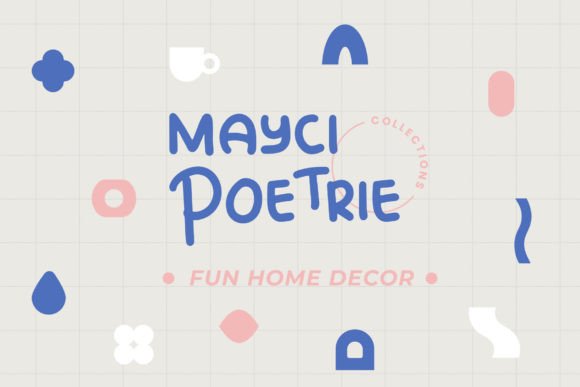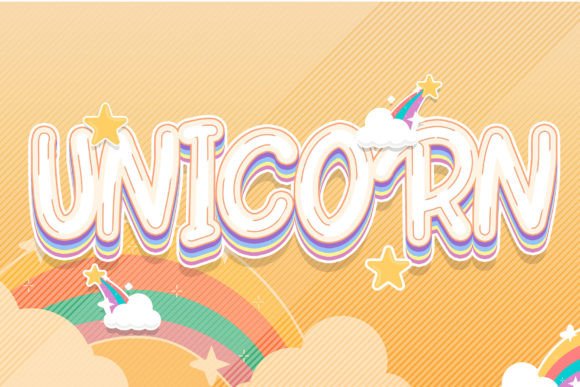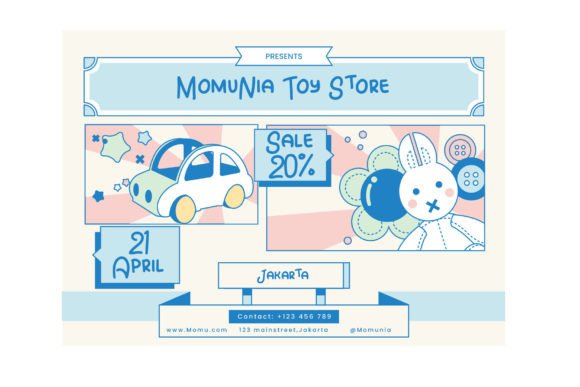
Introduction to Kohffie Cute Font
Kohffie Cute is a charming monoline typeface that exudes a delightful and endearing aesthetic.
With its soft, rounded letterforms and consistent stroke weight, this font captures the essence of cuteness and playfulness Its gentle curves and friendly demeanor make it perfect for a wide range of design applications, from children’s book titles and greeting cards to branding and product packaging.
Why Choose Kohffie Cute Font?
Kohffie Cute Font offers exceptional quality and versatility, making it a valuable addition to your design toolkit. Whether you’re creating for personal projects or commercial use, Kohffie Cute Font delivers professional results.